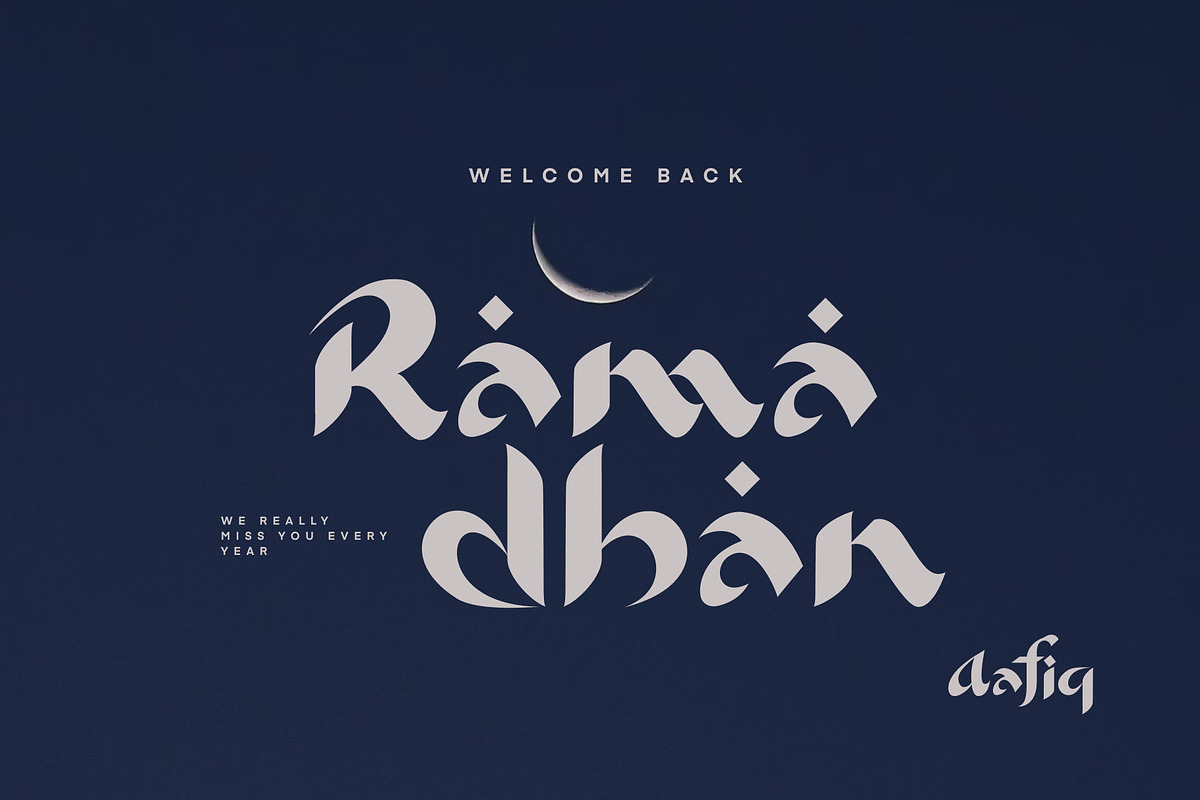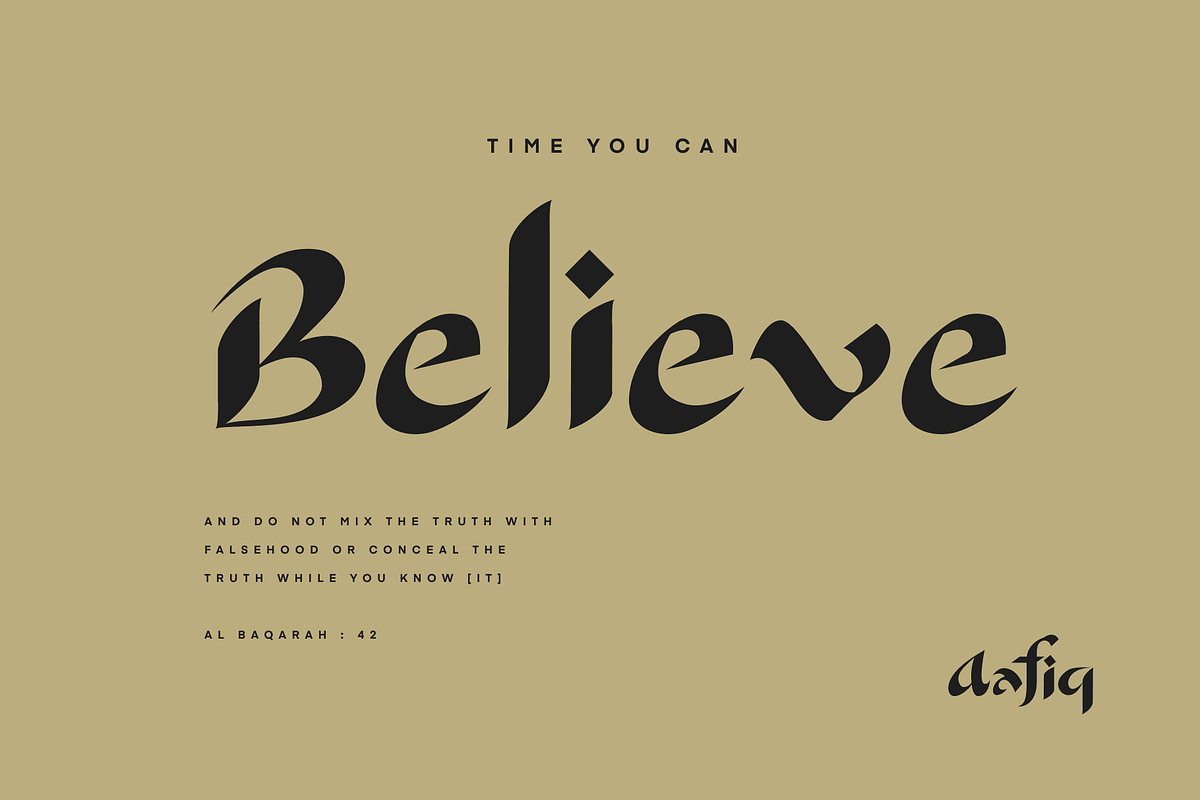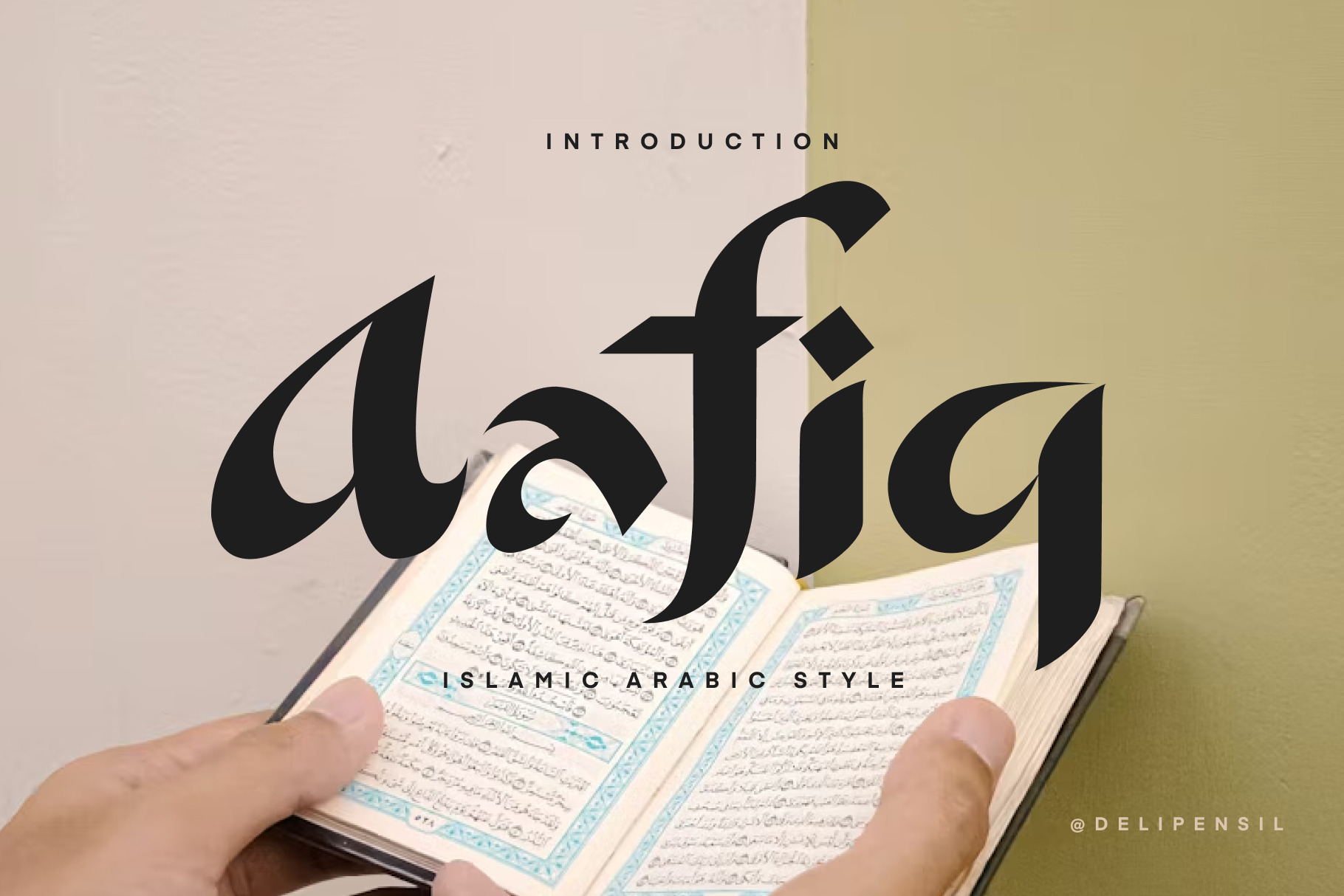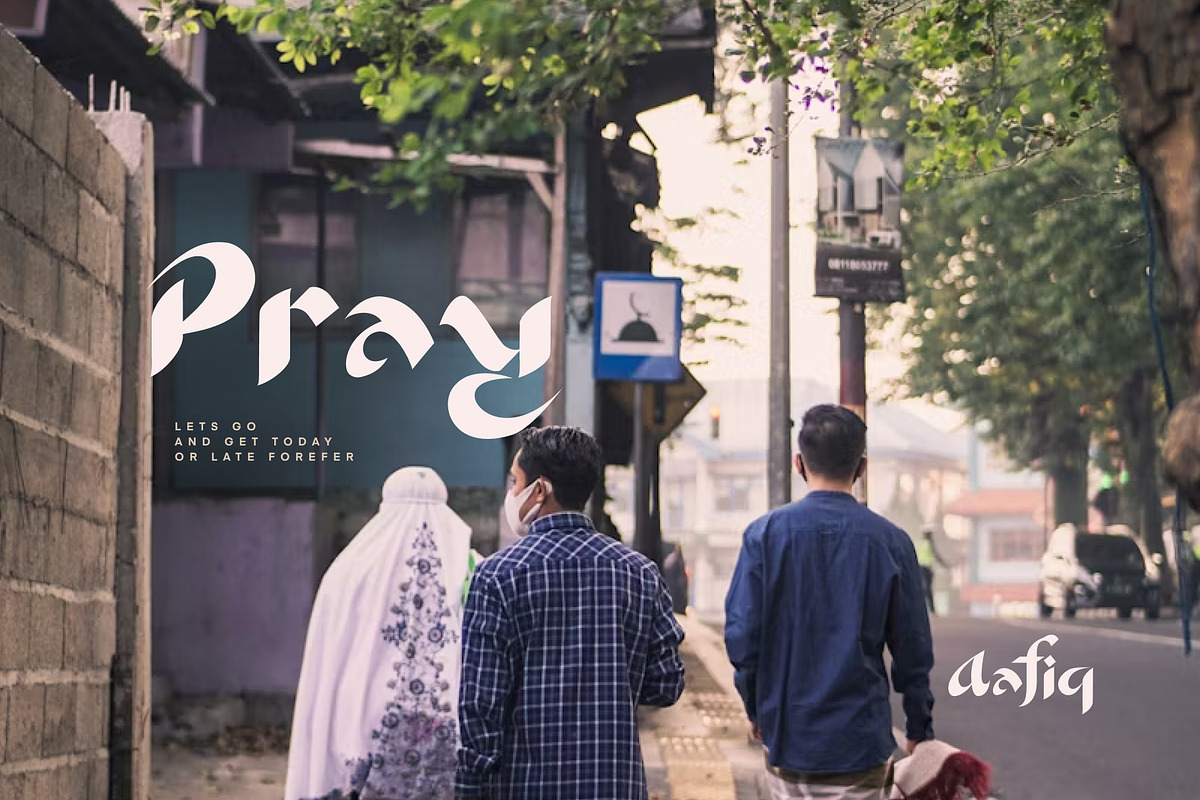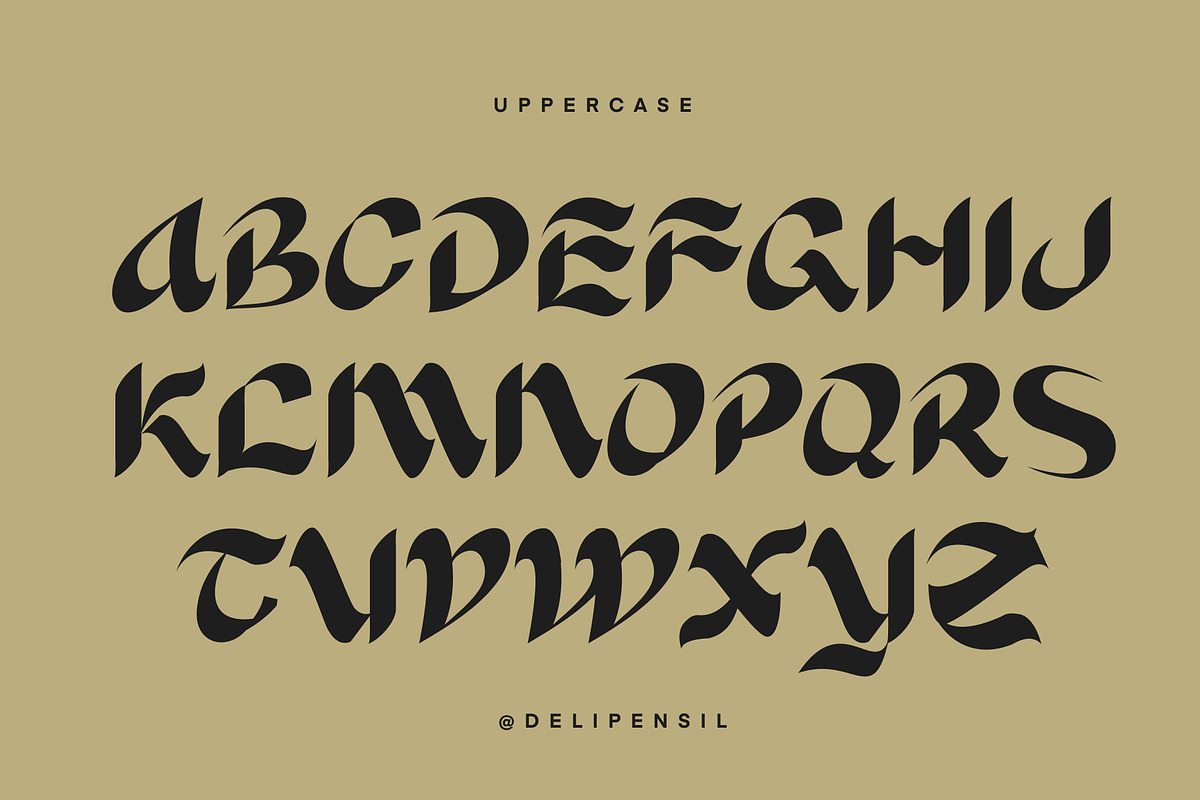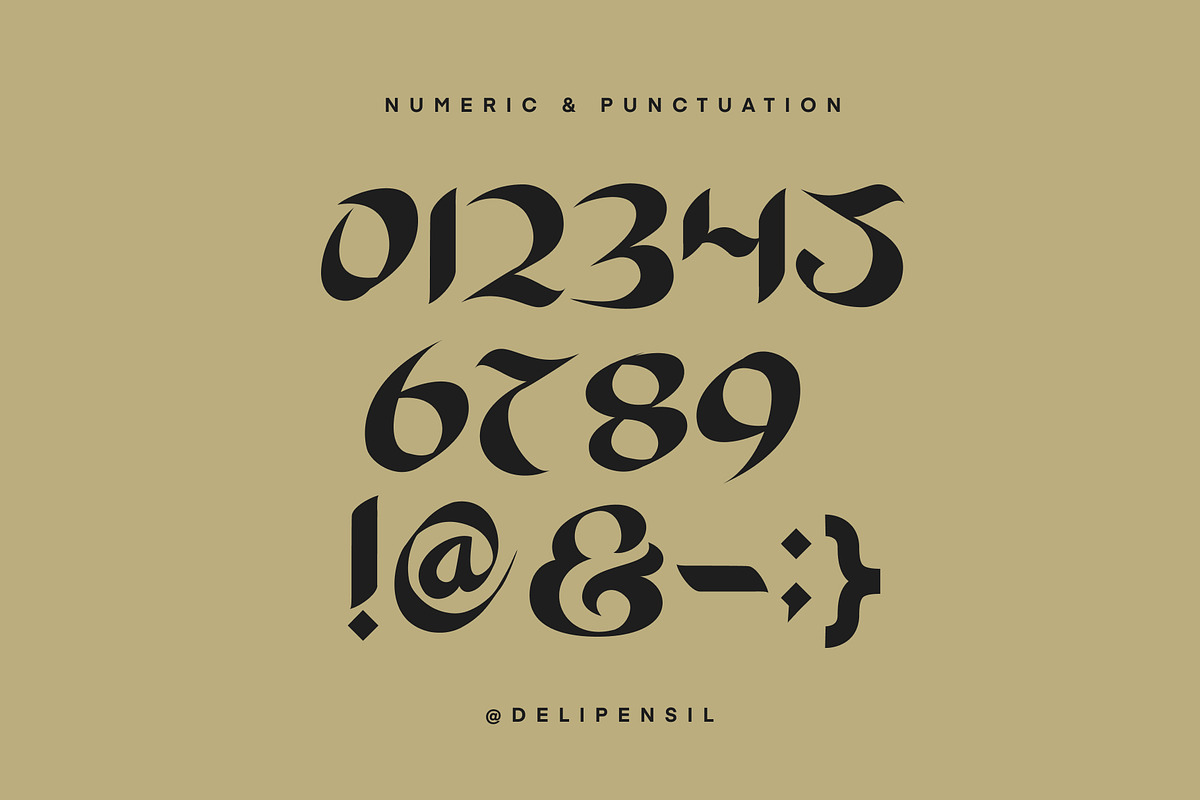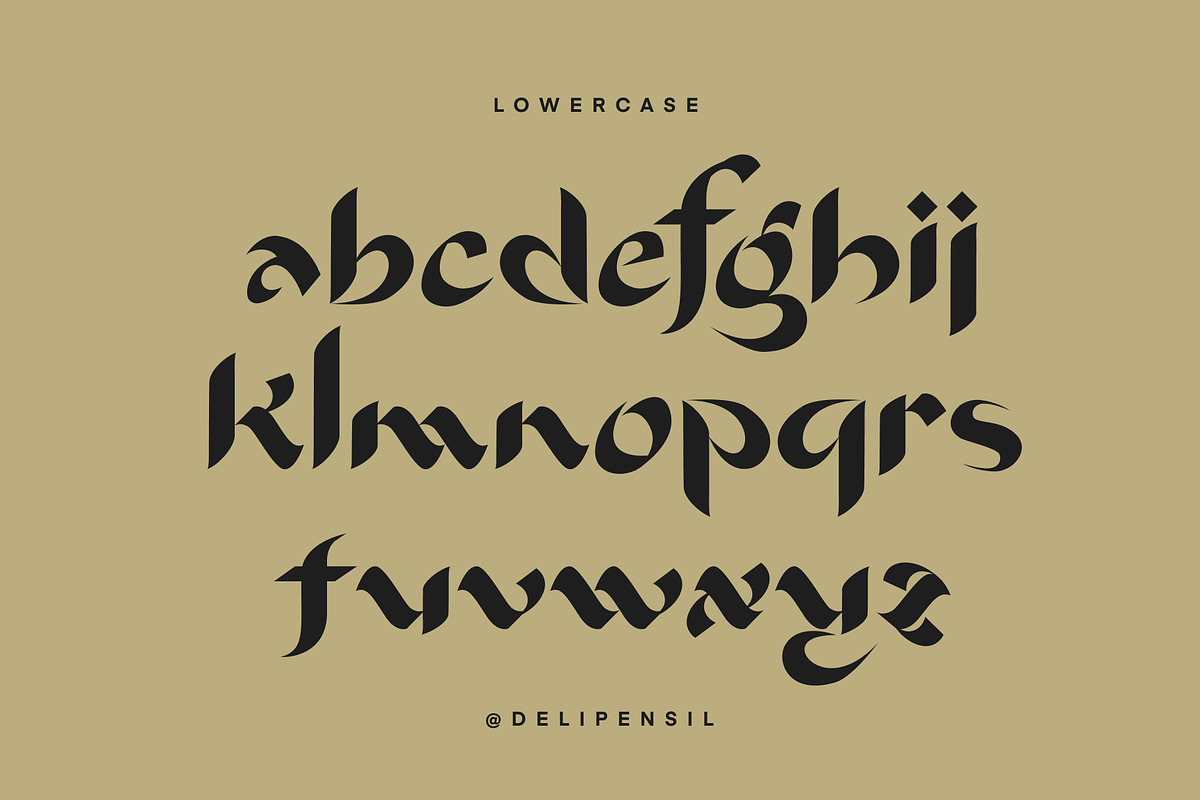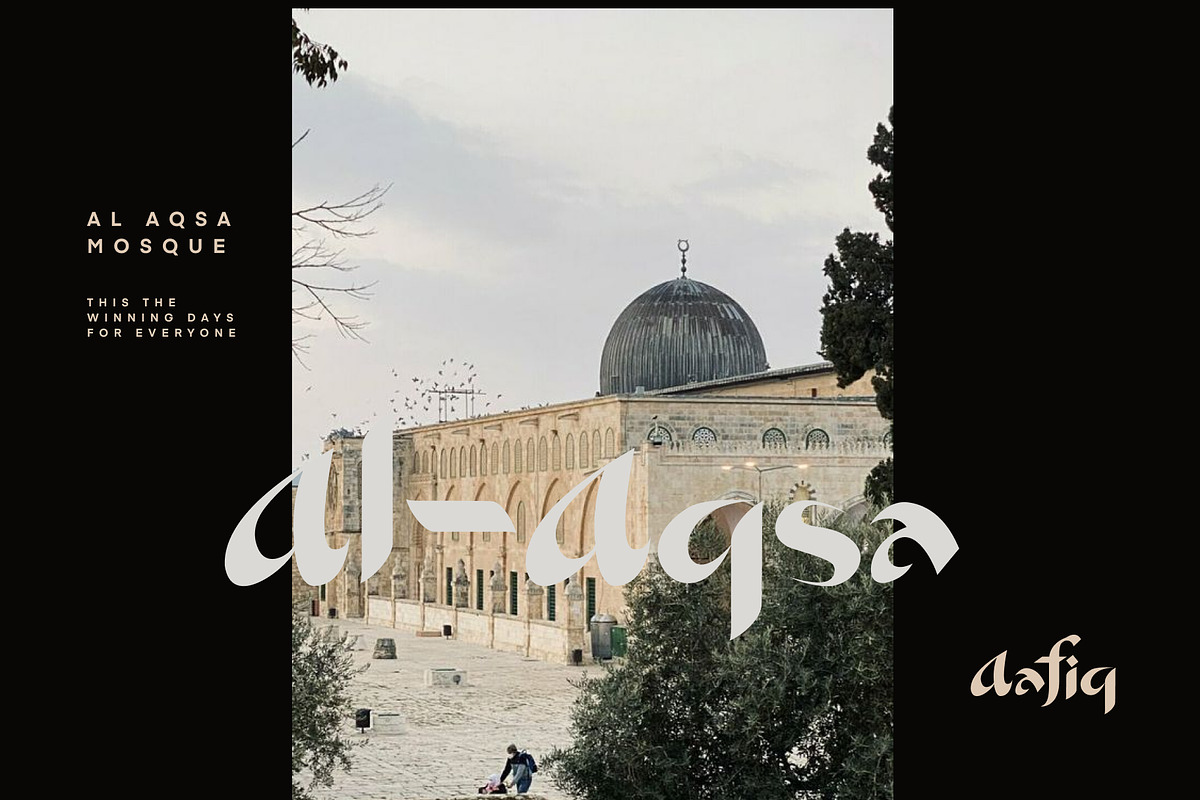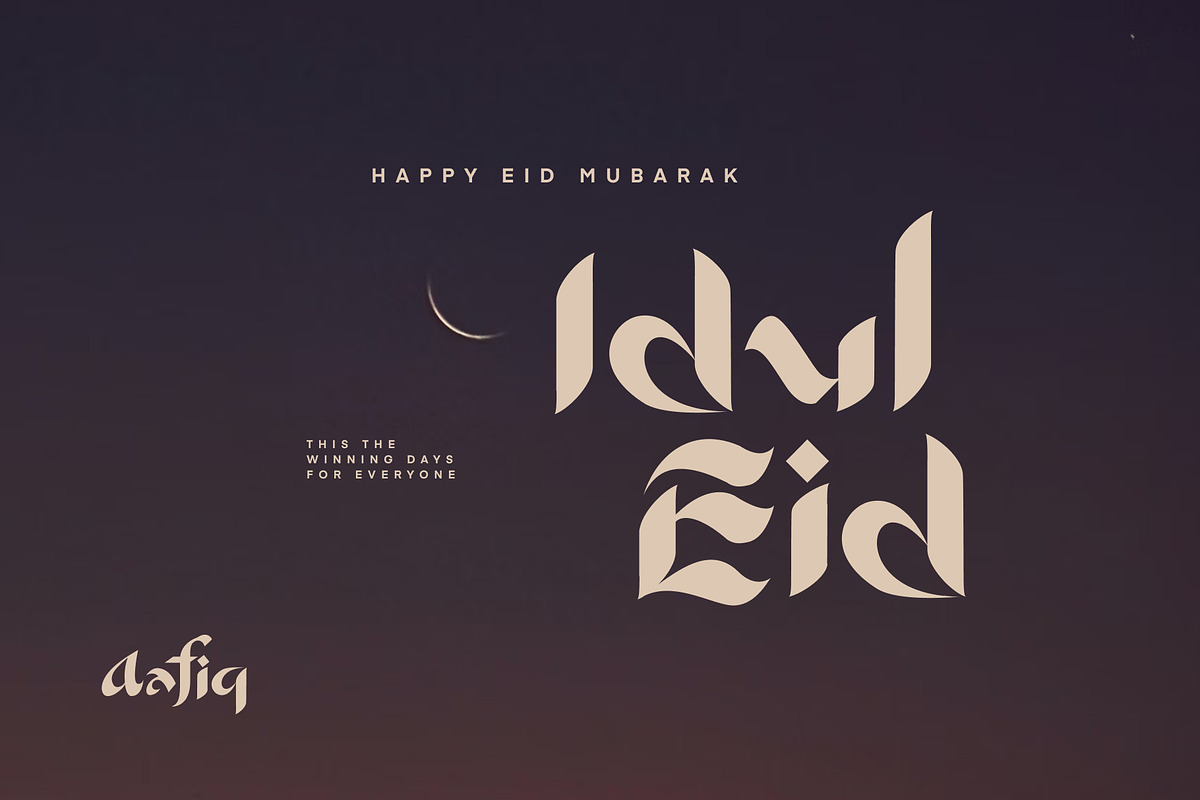
Aafiq - Islamic Serif Typeface
Bismillah, Introduction Aafiq - Islamic Serif Typeface
Ramadhan will be back, We made the new style Islamic Modern Serif font, clean classic and mindful , it combine in one font, use this font for anything beauty place, greetings card, for your logo, headline, cover book, magazine and many more
- Aafiq Kerning Style
- Aafiq Ligature Style